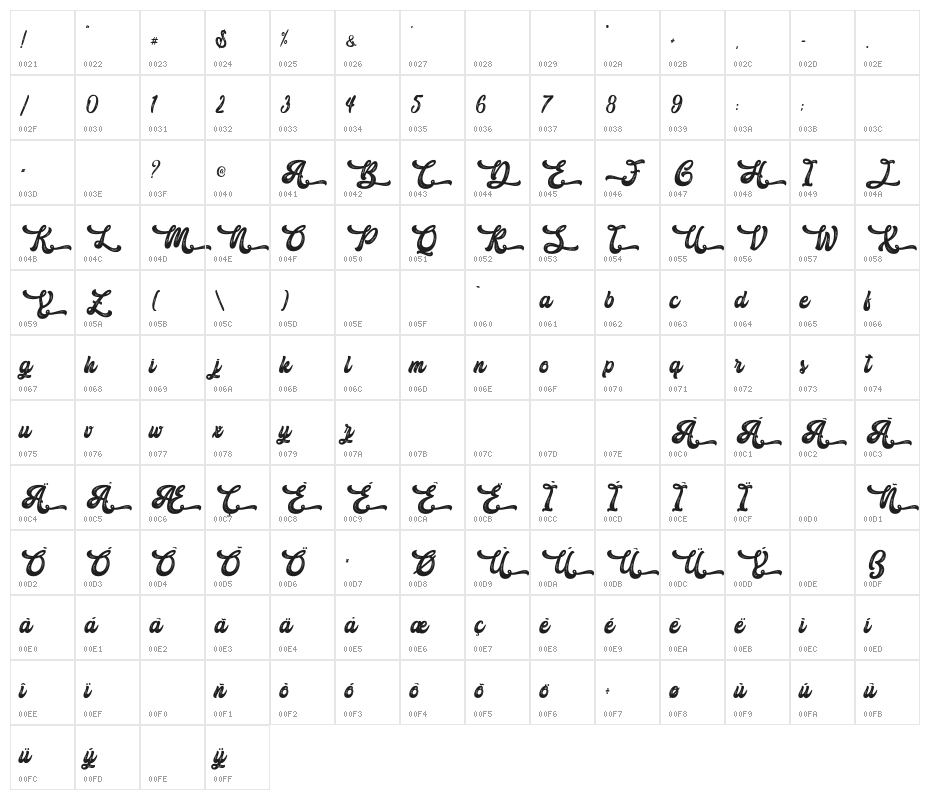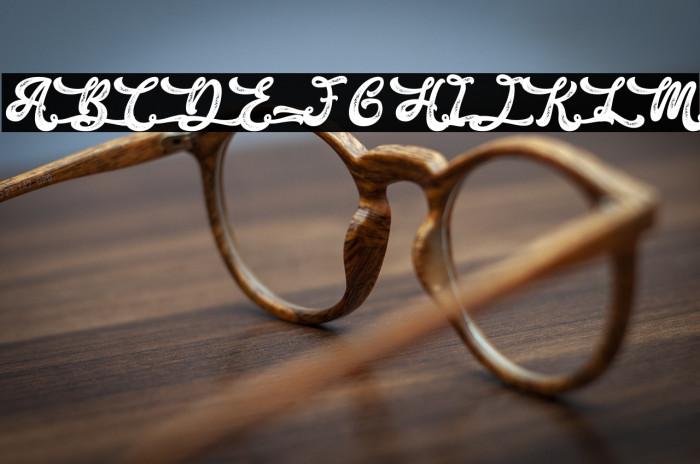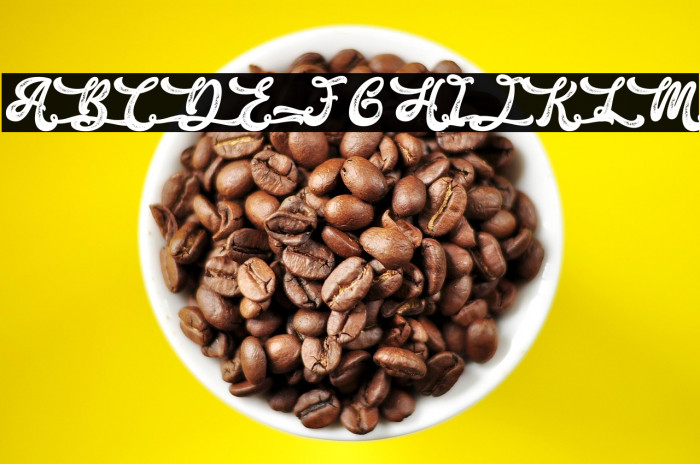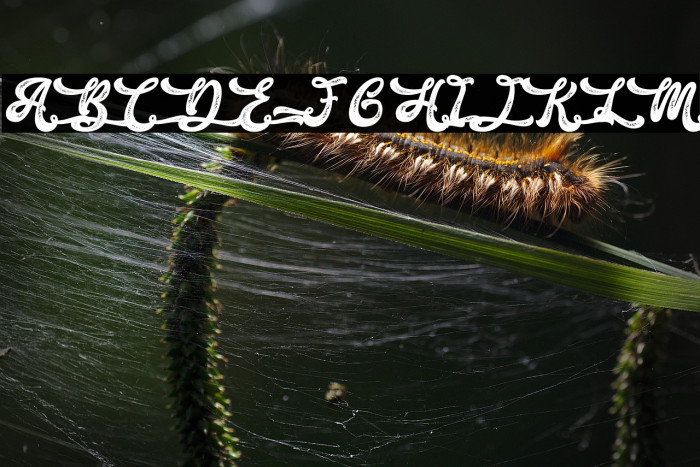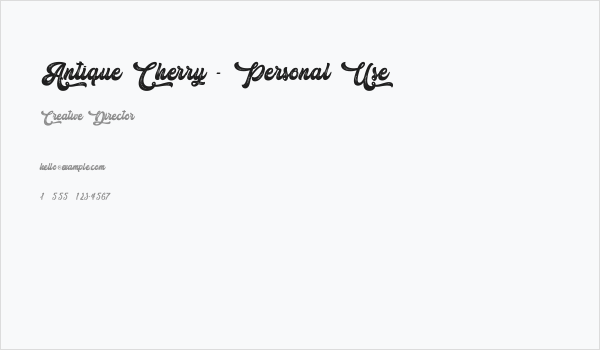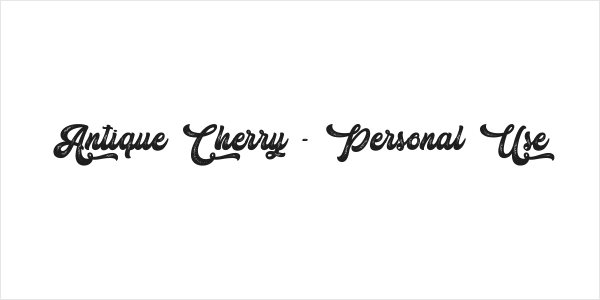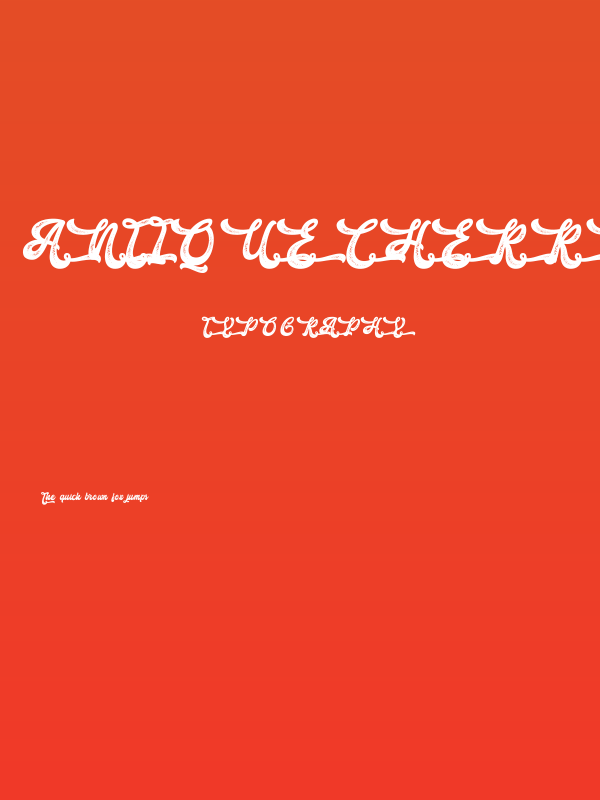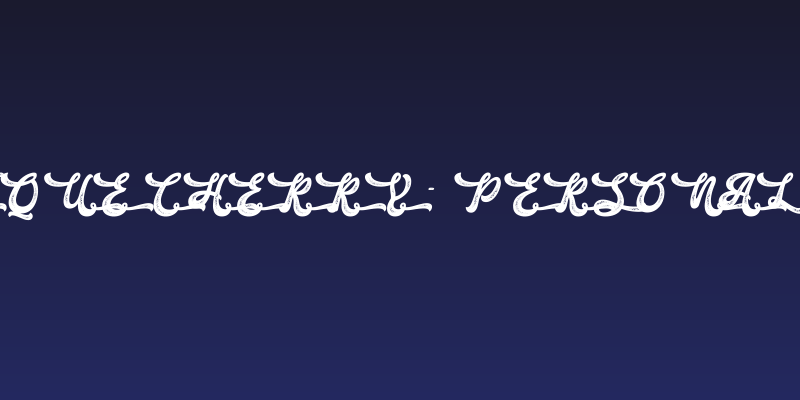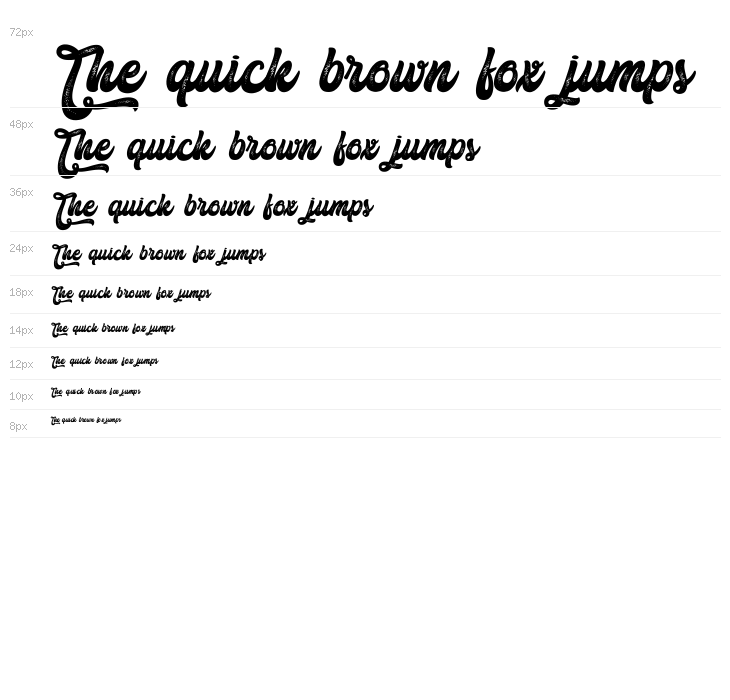
Antique Cherry - Personal Use Font
Antique Cherry - Personal Use Description
This font exudes a vintage charm with its ornate and flowing script style. The characters are intricately designed with elegant loops and flourishes, giving it a sophisticated and decorative appearance. The uppercase letters are particularly elaborate, featuring extended swashes that add a touch of grandeur. The lowercase letters maintain a consistent style, with smooth curves and a slightly condensed form. The numbers and special characters are equally ornate, ensuring a cohesive look across all elements. This font is perfect for projects that require a touch of elegance and nostalgia.